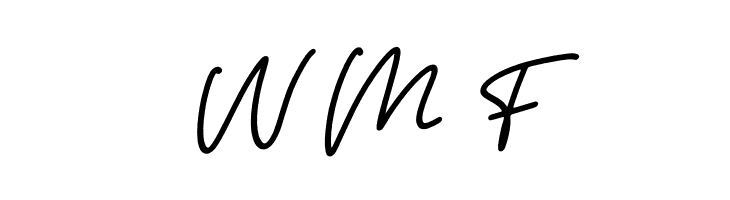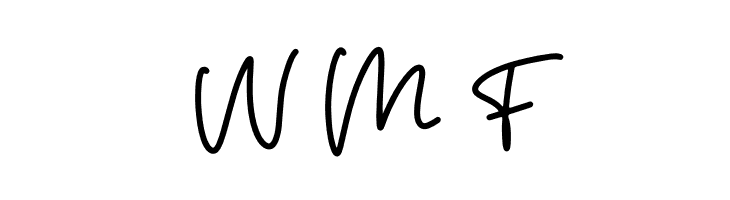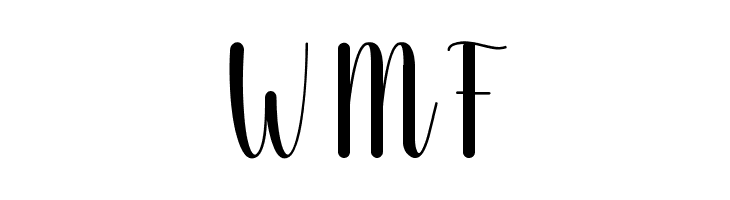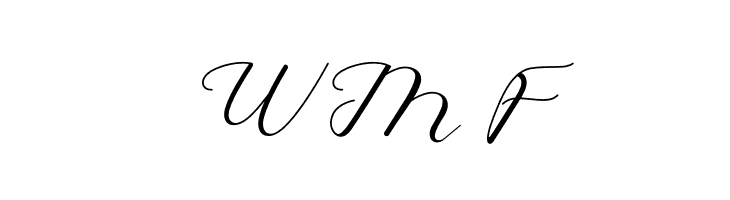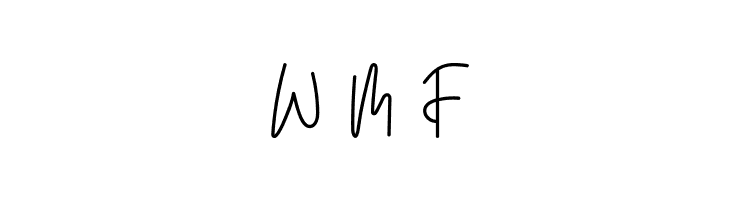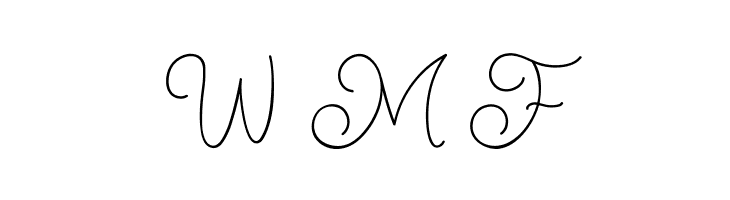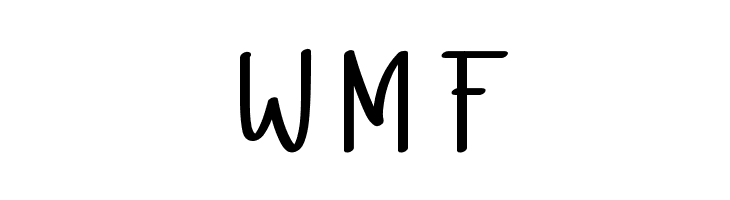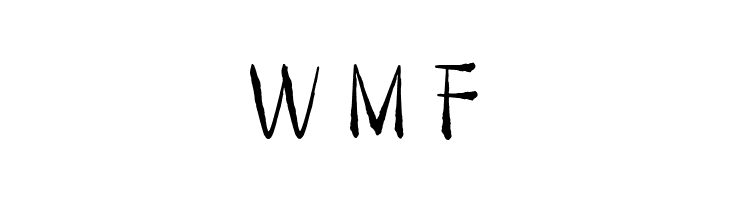
A dynamic, italic handwritten font with expressive, fluid strokes.
A playful, handwritten font with fluid strokes and a casual style.
A flowing, cursive font with elegant loops and consistent stroke width.
An elegant script font with flowing, interconnected letters and a classic calligraphic style.
A playful handwritten font with smooth curves and a casual, friendly style.
A whimsical script font with elegant loops and playful strokes.
A playful, handwritten-style font with a casual and friendly appearance.
A dynamic handwritten font with expressive and irregular strokes.
A modern, cursive font with elegant, flowing lines and a handwritten feel.
A bold, brush-style font with an expressive and artistic appearance.